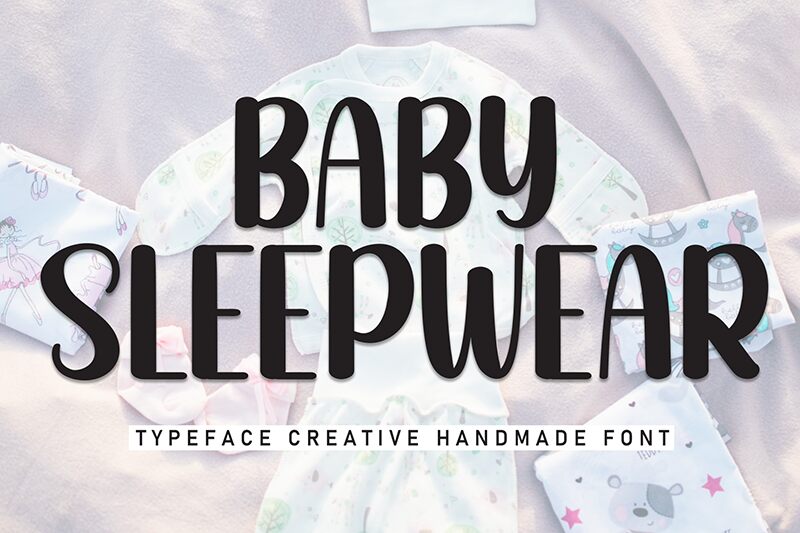
Baby Sleepwear
Baby Sleepwear font by Andi Moz is a free, whimsical brush font with a casual feel. Its modern appearance and rounded forms have friendly qualities, like the smooth transitions found in strokes and curves. Minimalistic in its sense of artistic expression within simplicity, this font’s lack of complicated elements gives it a legible look that can be used for various purposes.
Use Baby Sleepwear for kid-related designs of logos as well as toys or games. Utilize it for virtual art in applications or games, books and magazines covers, posters and flyers, branding materials such as business cards or correspondence material along with social media banners made fun with compatible artwork!